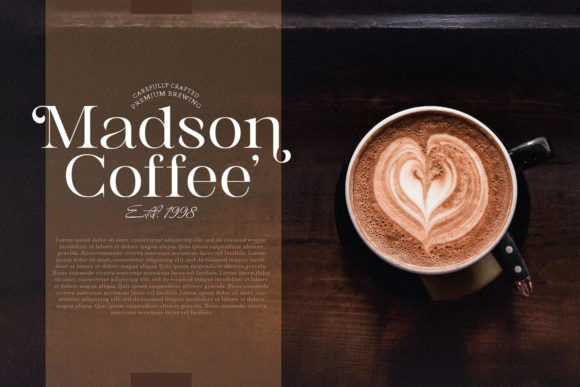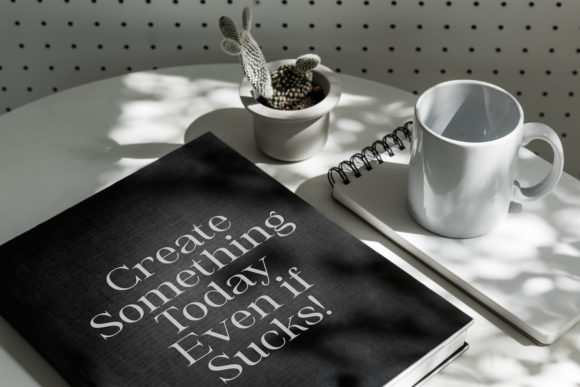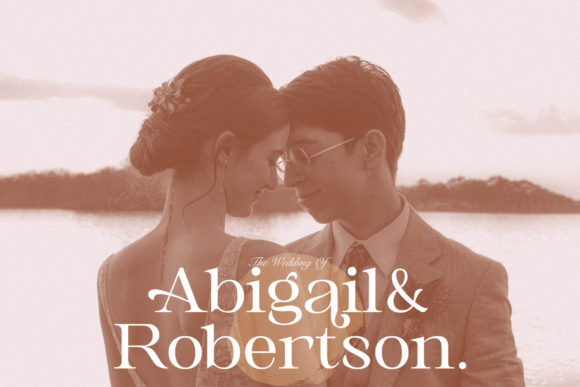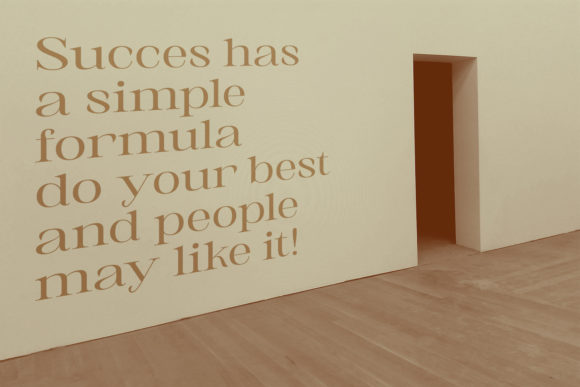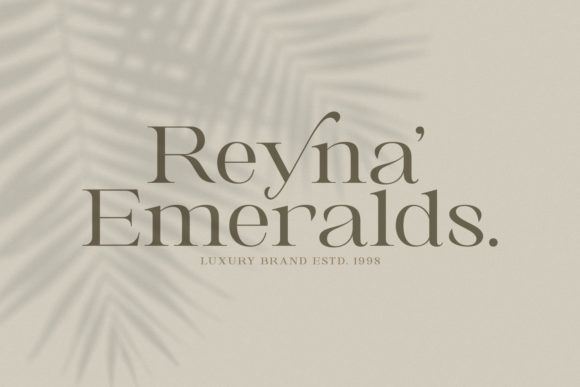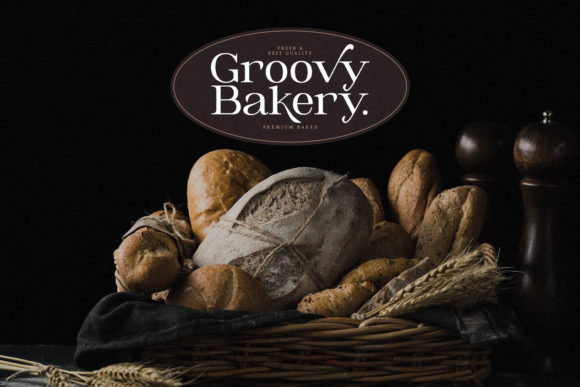
Awaken Font: Elevate Your Designs with Elegance and Simplicity
Are you on the hunt for a font that exudes confidence and sophistication? Look no further than Awaken Font, an assertive yet distinct serif font that’s taking the design world by storm. With its perfect blend of elegance and simplicity, Awaken Font is the perfect choice for a wide range of design ideas, from formal to informal.
The Awaken Font Difference
Awaken Font stands out from the crowd with its unique serif design. The font’s assertive personality shines through in its bold lines and confident strokes, making it perfect for headlines, titles, and other display text. Yet, despite its boldness, Awaken Font remains surprisingly versatile, effortlessly adapting to both formal and informal design contexts.
Elegance and Simplicity
So, what makes Awaken Font so special? For starters, its elegant design ensures that it always looks refined and sophisticated. The font’s simple, uncluttered lines make it easy to read and understand, even at smaller sizes. This combination of elegance and simplicity makes Awaken Font an excellent choice for designers who want to create stunning visuals without sacrificing legibility.
Design Ideas to Bring Awaken Font to Life
Awaken Font is an incredibly versatile typeface that can be used in a wide range of design projects. Here are just a few ideas to get you started:
- Wedding Invitations and Stationery: Awaken Font’s elegant design makes it perfect for formal events like weddings. Use it to create beautiful invitations, programs, and other stationery.
- Logos and Branding: The font’s assertive personality makes it an excellent choice for logos and branding materials. Use Awaken Font to create a bold, memorable brand identity.
- Packaging Design: Awaken Font looks fantastic on product packaging, adding a touch of sophistication and elegance to even the most everyday items.
- Digital Media: Awaken Font is also perfect for digital media, including social media graphics, blog posts, and website headers.
Why Choose Awaken Font?
With so many fonts to choose from, why should you choose Awaken Font? Here are just a few compelling reasons:
- Unique Design: Awaken Font’s distinctive serif design sets it apart from more generic fonts.
- Versatility: The font’s elegance and simplicity make it suitable for both formal and informal design projects.
- Legibility: Awaken Font is incredibly easy to read, even at smaller sizes.
- Customization: The font is highly customizable, allowing you to tailor it to your specific design needs.
Tips for Using Awaken Font
To get the most out of Awaken Font, here are a few tips to keep in mind:
- Experiment with Sizes: Awaken Font looks fantastic at a wide range of sizes, from large headlines to smaller body text.
- Play with Colors: The font’s simplicity makes it easy to pair with a wide range of colors and textures.
- Mix and Match: Don’t be afraid to combine Awaken Font with other fonts to create a unique, eye-catching design.
In conclusion, Awaken Font is an exceptional typeface that offers the perfect blend of elegance, simplicity, and assertiveness. Whether you’re a designer, crafter, or DIY enthusiast, Awaken Font is an excellent choice for a wide range of design projects. With its versatility, legibility, and unique design, Awaken Font is sure to elevate your designs and help you stand out from the crowd.